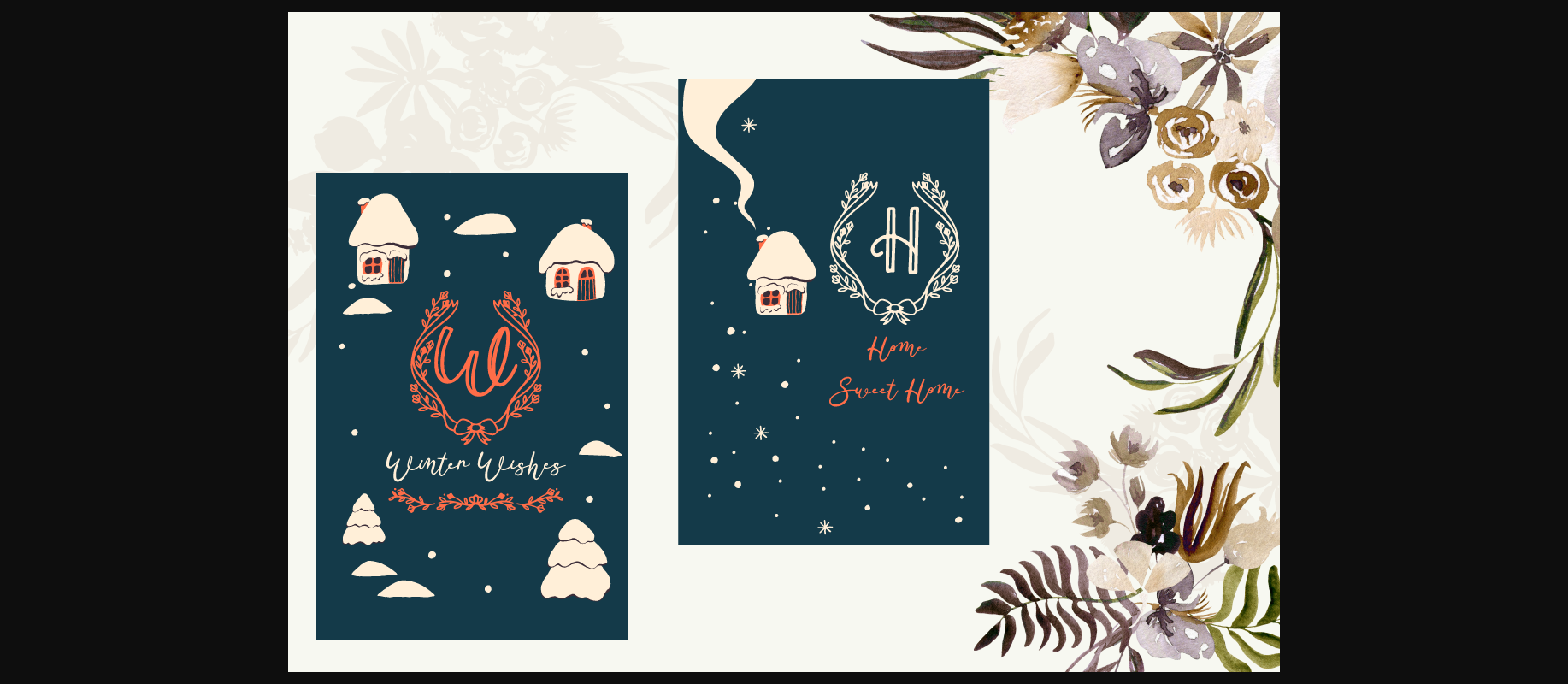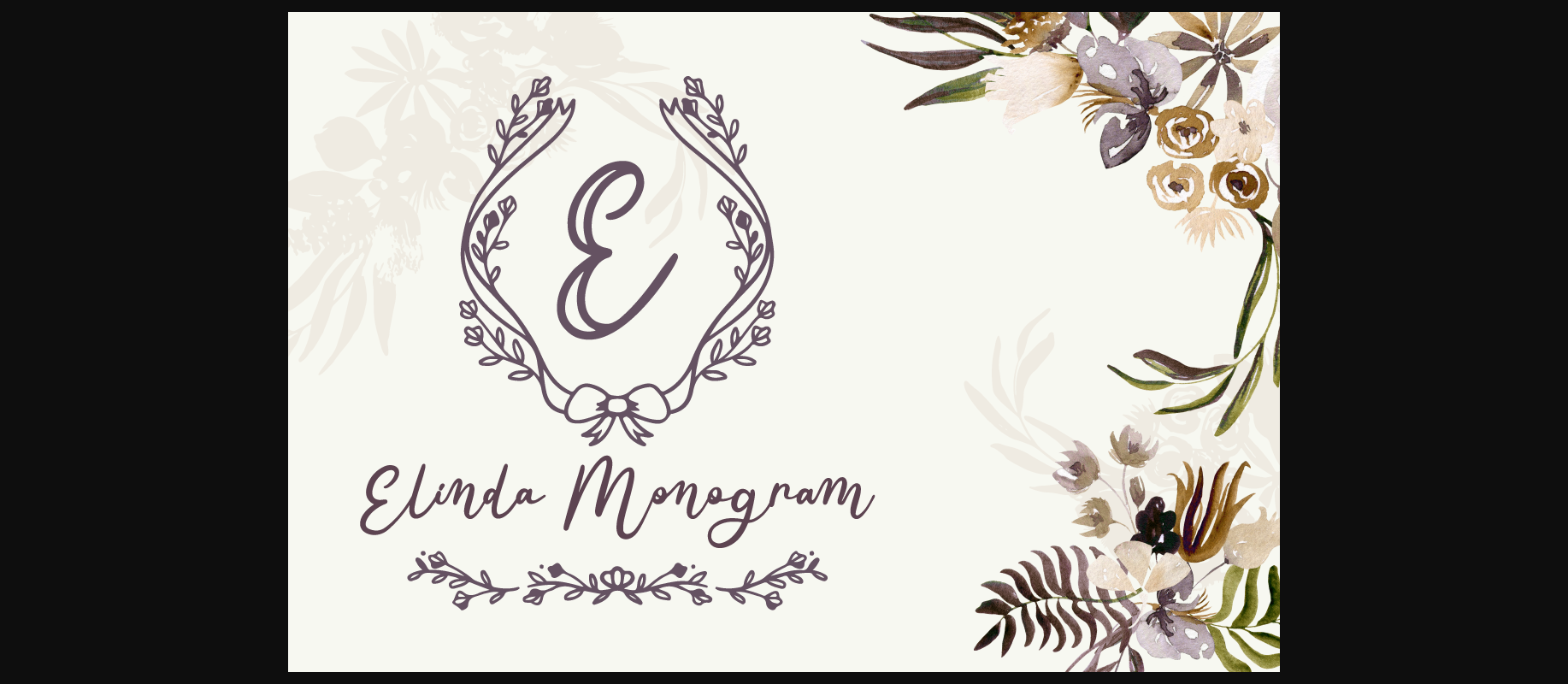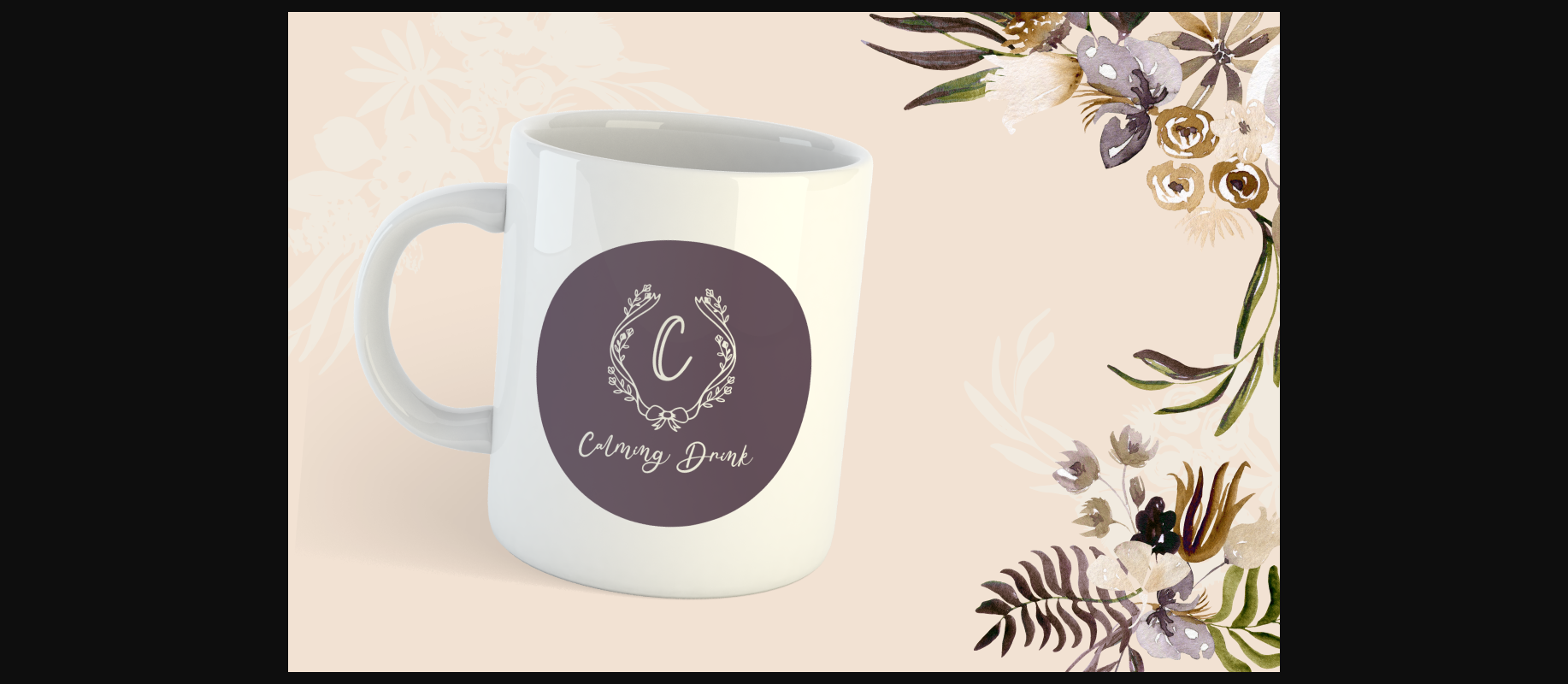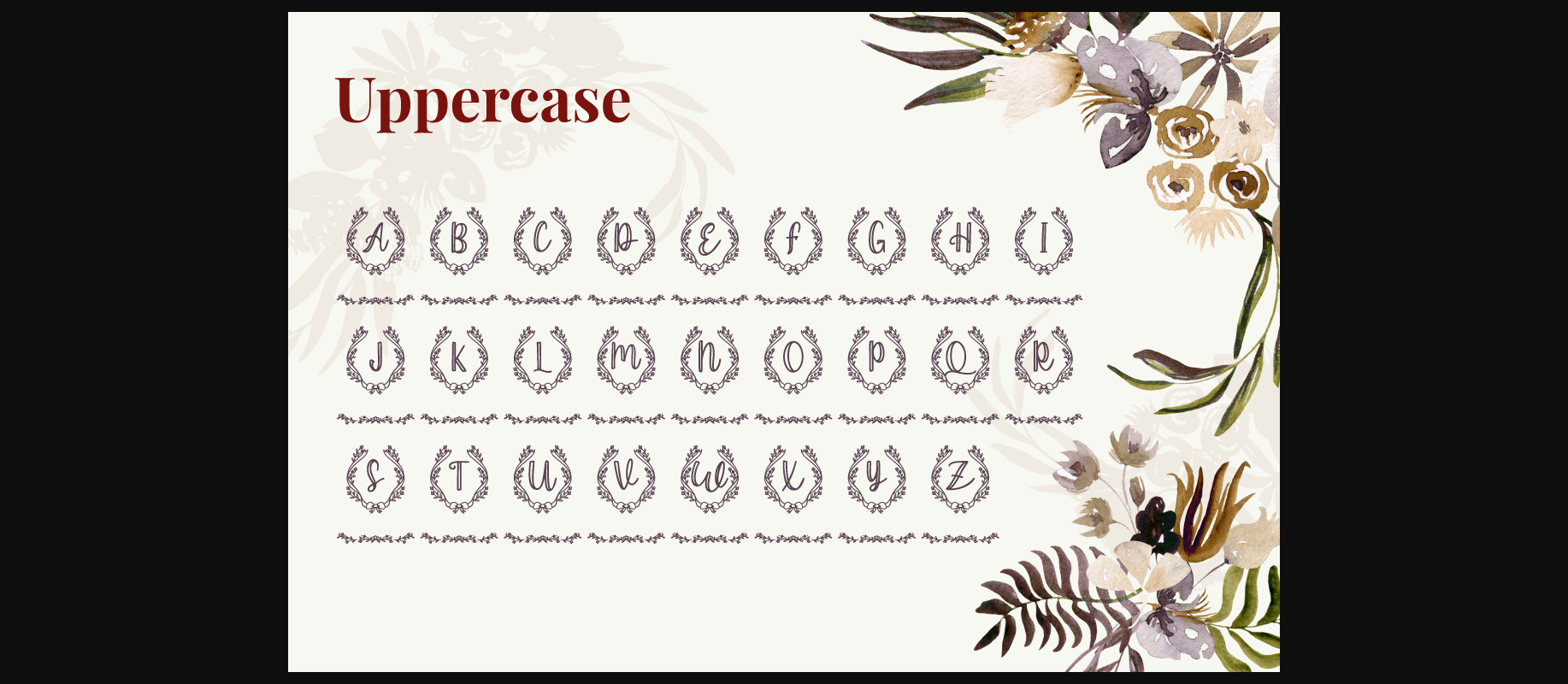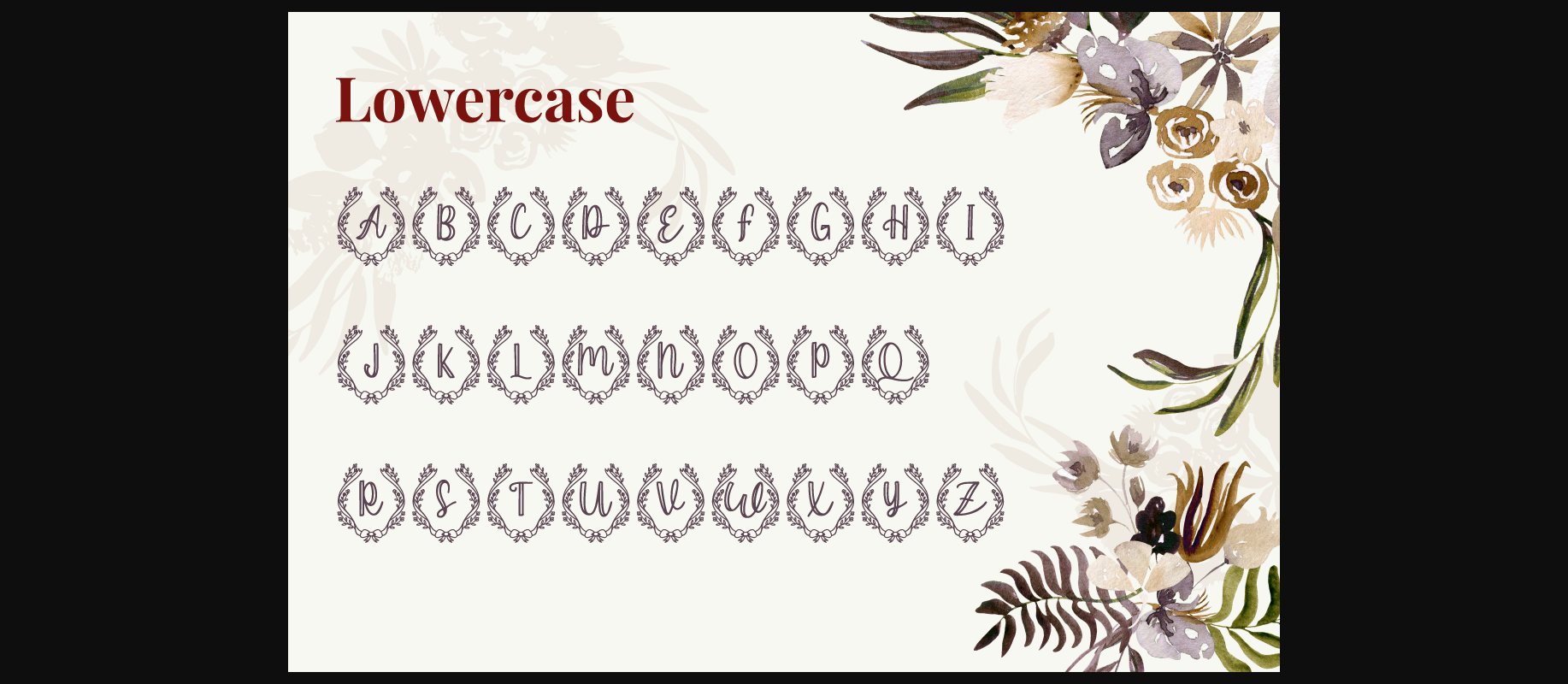
HomeDecorative FontsElinda Monogram Font Decorative Fonts Elinda Monogram Font FacebookXPinterestWhatsApp 1 of 7 ... Elinda Monogram Font Poster 2... Elinda Monogram Font Poster 3... Elinda Monogram Font Poster 4... Elinda Monogram Font Poster 5... Elinda Monogram Font Poster 6... Elinda Monogram Font Poster 7... About Elinda Monogram Font Elinda Monogram is a dainty and unique decorative font. Add this romantic and lovely looking font to each of your love letters, wedding invitations or favorite design ideas, and you will be astounded by the outcome. DOWNLOAD NOW People also explored Zealand Super Stick Font Engula Font Love My Font Whent Font Easter Cute Egg Font Amsterdam Font Raisya Font Bailey Font 327 0 TagsElinda Monogram Font Previous articleRoses Bloom FontNext articleSweet Monogram Font LEAVE A REPLY Cancel reply Comment: Please enter your comment! Name:* Please enter your name here Email:* You have entered an incorrect email address! Please enter your email address here Website: Save my name, email, and website in this browser for the next time I comment. Personal Use Free Geuli Personal Use Free Read more about this font Bruttney Personal Use Free Read more about this font Rookie Mastering Personal Use Free Read more about this font Sui Genesis Personal Use Free Read more about this font BLOG How to Cut Any Font on Cricut: Convert a Font to SVG (Free) Turn any font into a clean SVG so it cuts crisp on Cricut - a quick 3-step workflow using a free font-to-SVG tool. To increase your work productivity, choose the most readable fonts. The 10 Best Handwriting Fonts to Add Personality to Your Designs Where to Buy American Fonts Online in 2024